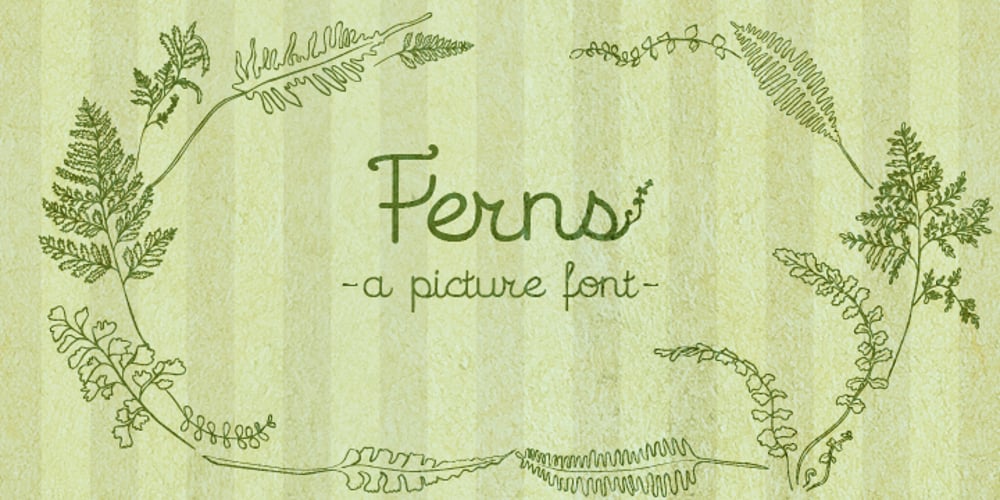
Ferns Font Family was designed by Natsuko Hayashida and published by Okaycat. Ferns contains 1 styles and family package options. Beautiful fern silhouettes. Ferns is a picture font with highly detailed illustrations drawn by hand from careful botanical study. Great anytime you need an organic feel, some nice plants or a touch of nature.